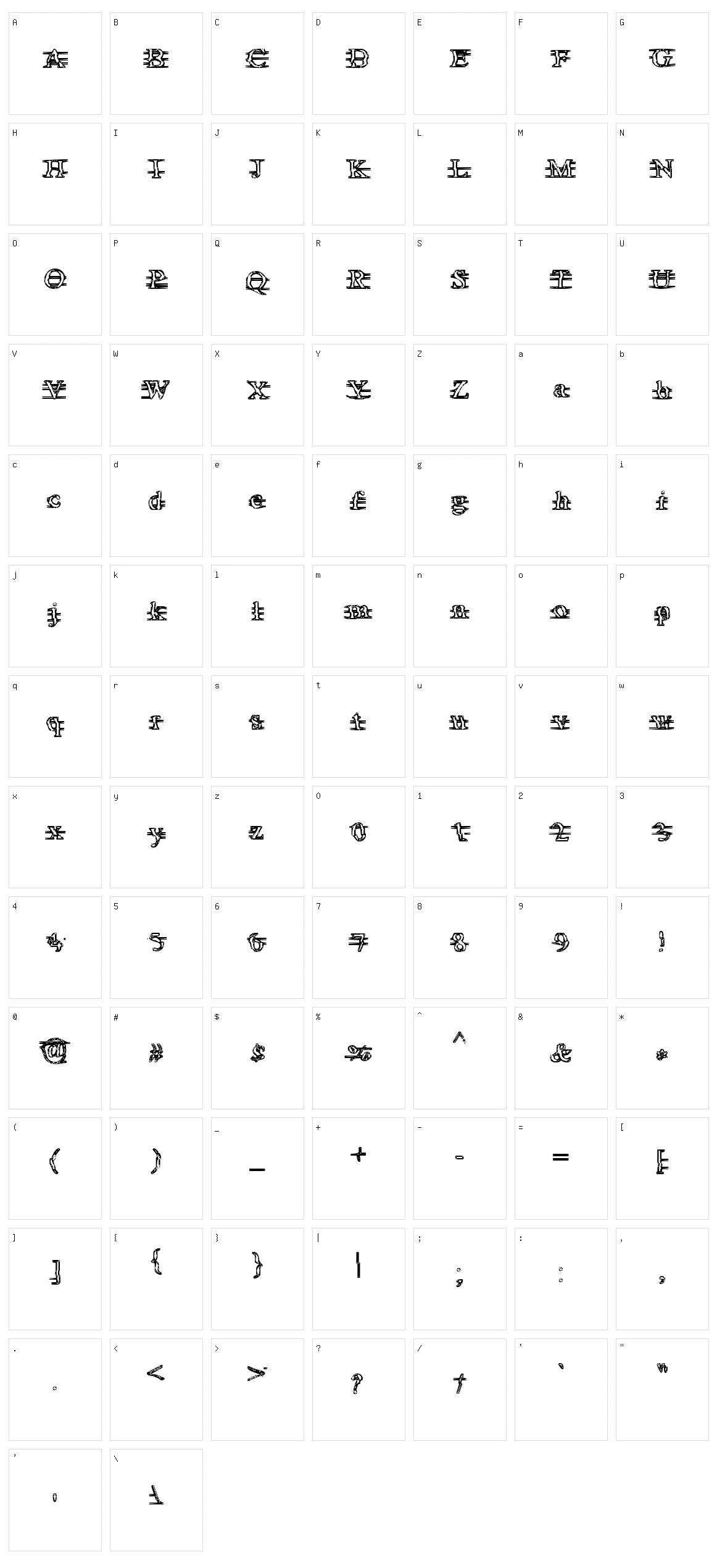
The free font Are you awake Neo? is carefully designed by Mr.Fisk Fonts, showcasing a thoughtful balance of creativity and usability and falls under the Distorted font style. When you download the ZIP file, it contains only 51.48 KB of font files, making it lightweight and quick to download. Please review the license details below to understand permitted usage and distribution rights. If license information is not available, we recommend using this font for personal projects only or contacting the author directly for commercial usage permissions.